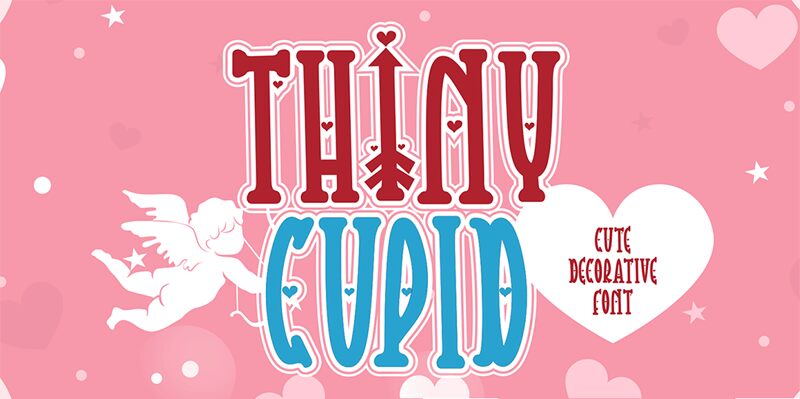
Thiny Cupid, a narrow Valentine font created by designer Panji Ramdhani, is perfect for projects that require an elegant and romantic touch. Use it for wedding invitations, love letters, and even greeting cards.
Thiny Cupid
Panji Ramdhani